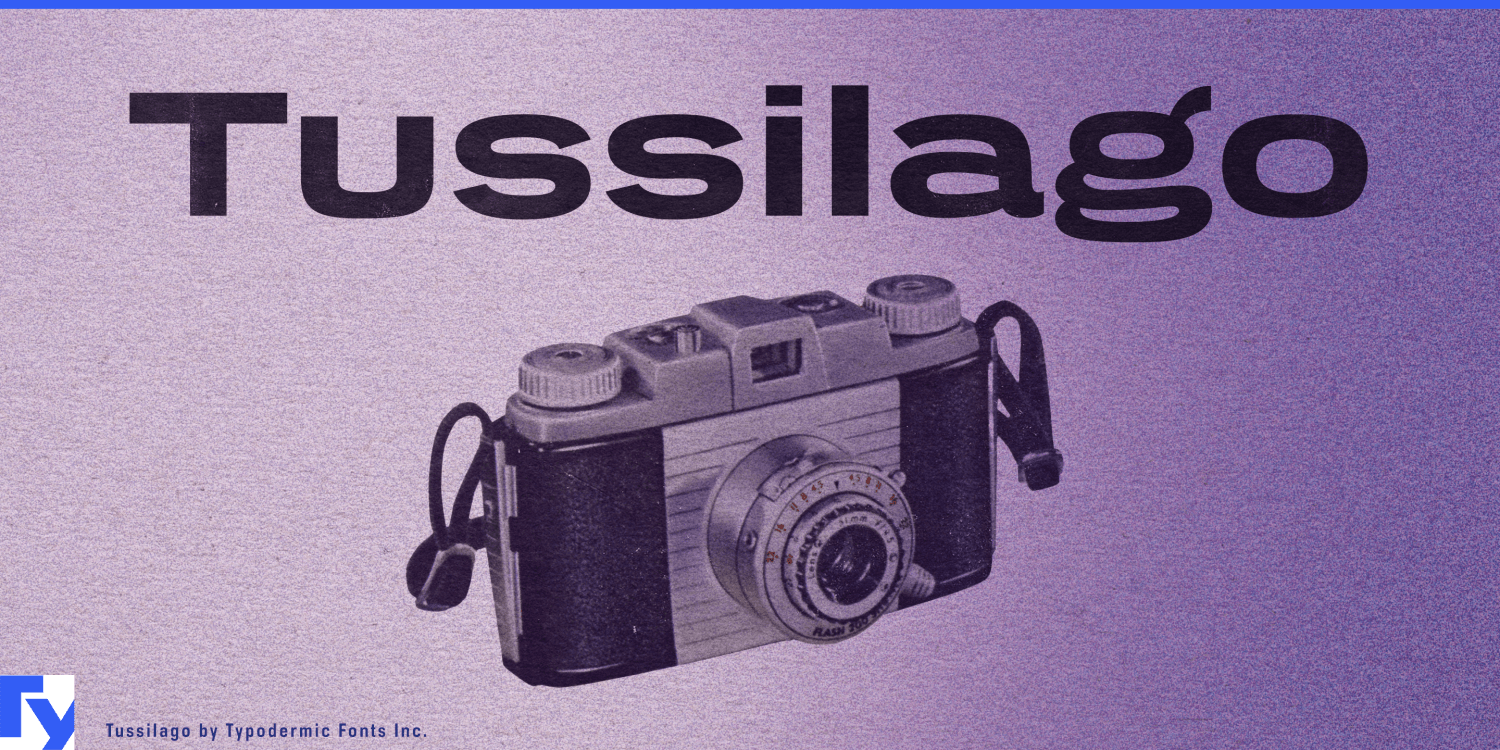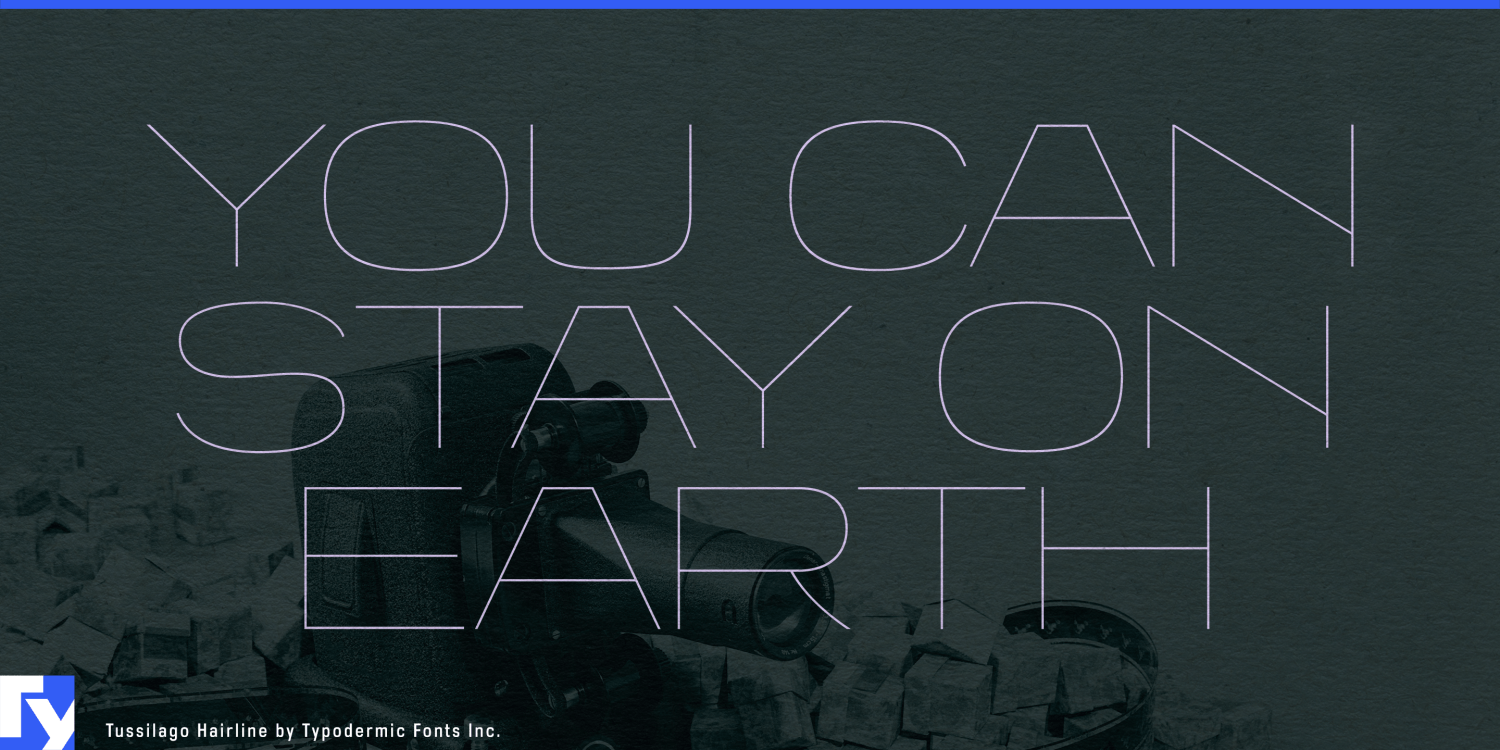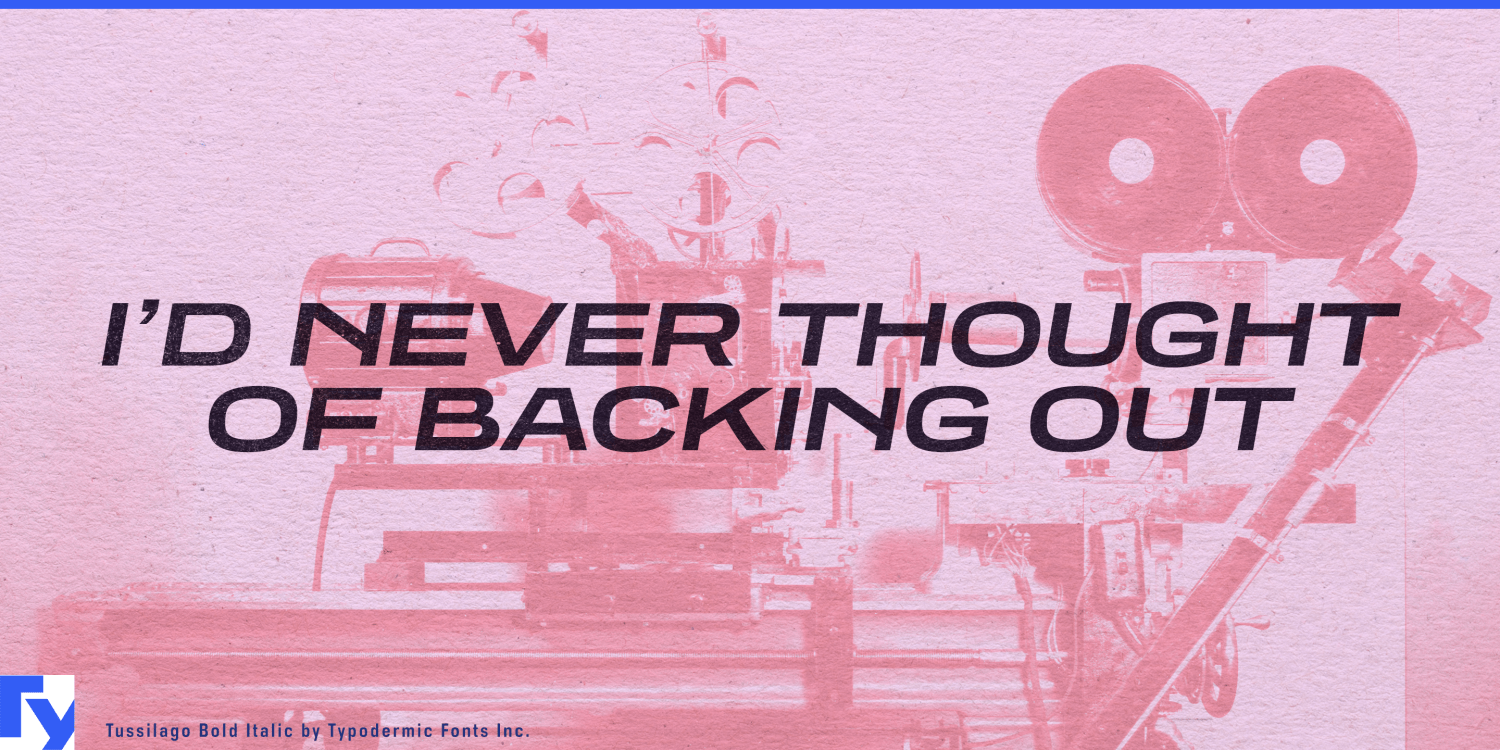
About Tussilago
Tussilago: a typeface that blossoms with the untamed beauty of a wildflower meadow. Named after the resilient coltsfoot—one of spring’s earliest bloomers—this font family unfurls its petals across the digital landscape with a refreshing…